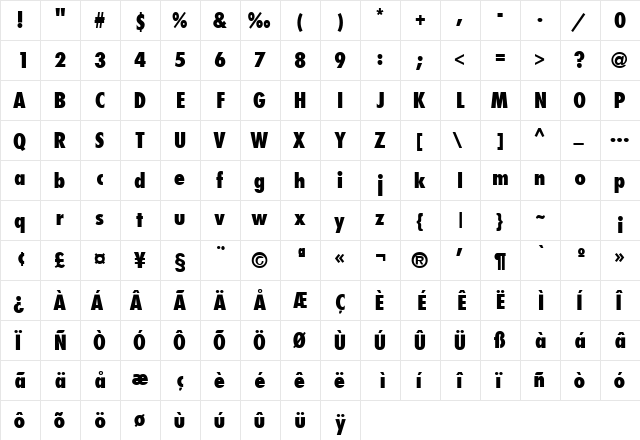
KudosCondSSK SemiBold Font Preview
KudosCondSSK SemiBold
Design Context for KudosCondSSK Typeface
KudosCondSSK takes a measured approach to typography — its balanced proportions and neutral character make it a reliable workhorse for both digital and print work. Its bold stroke weight gives it real presence on the page. The condensed width makes it efficient for tight spaces without sacrificing legibility.